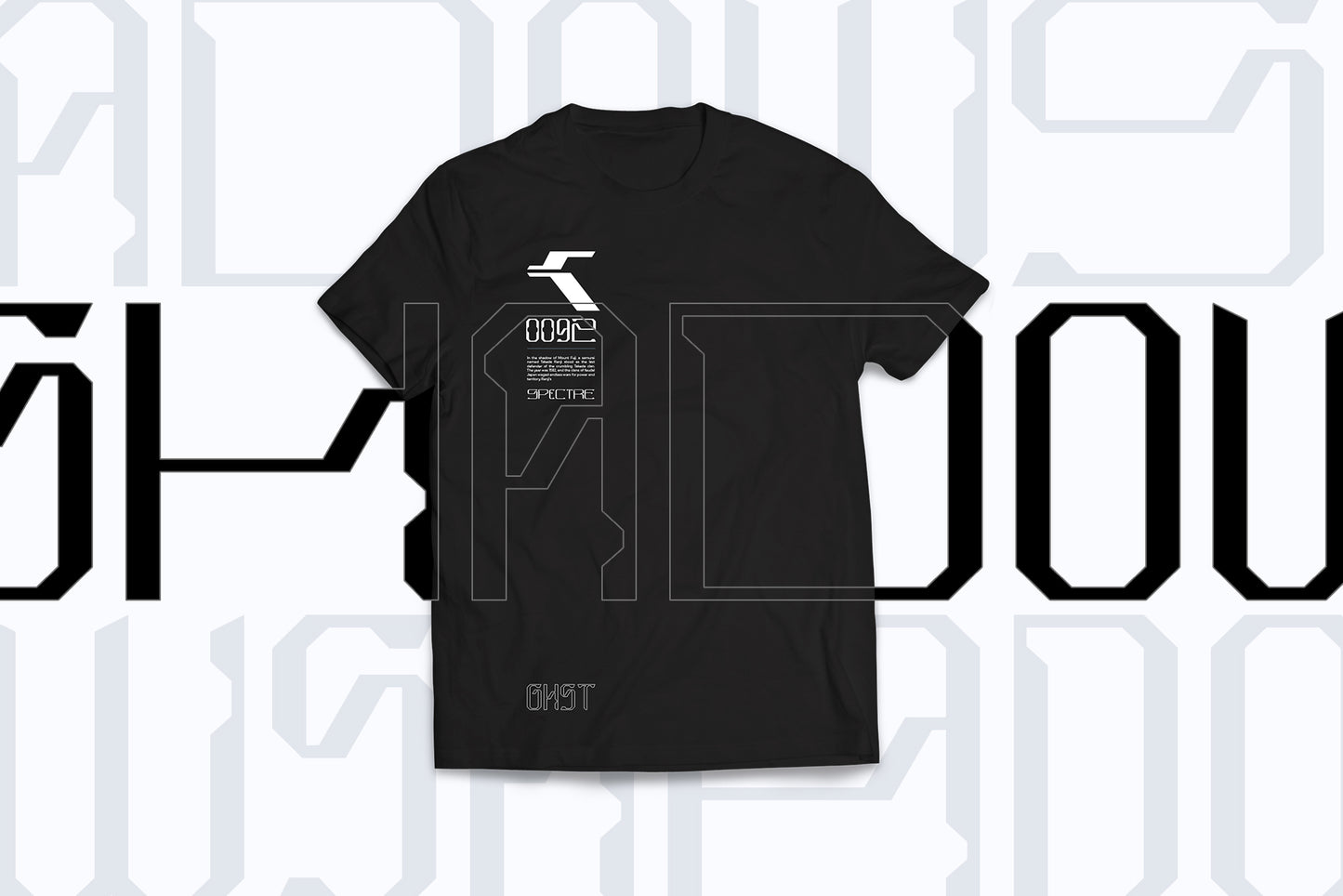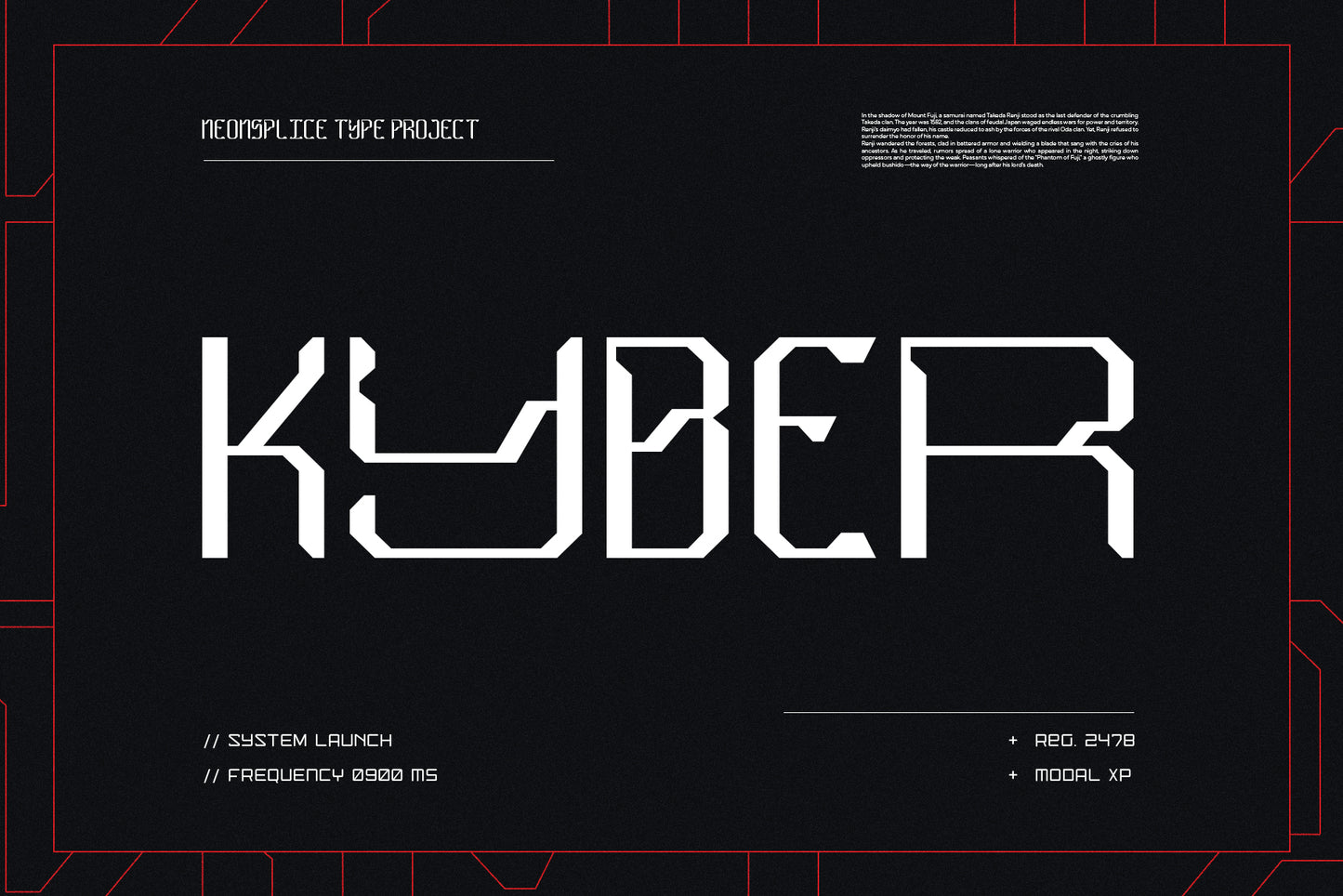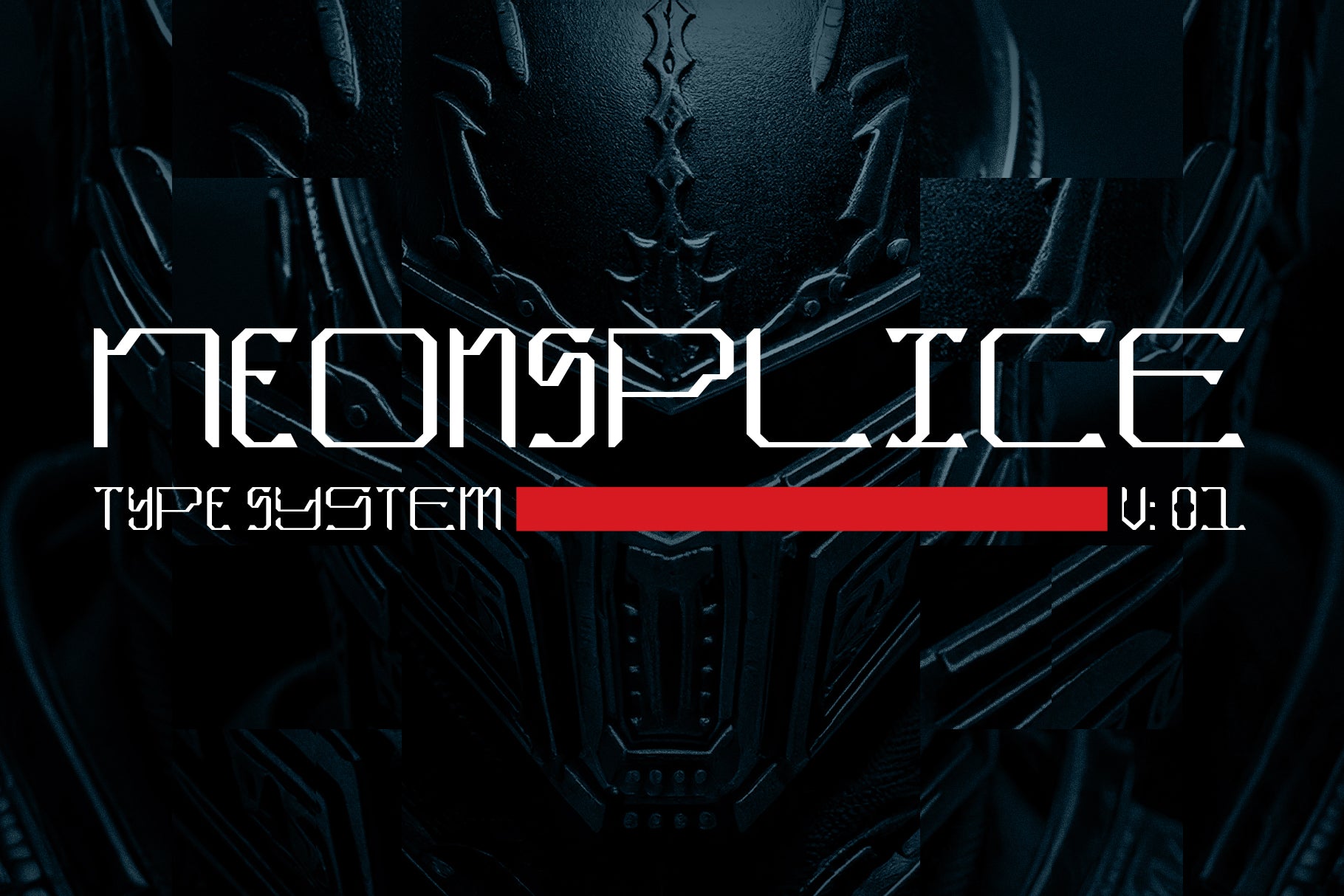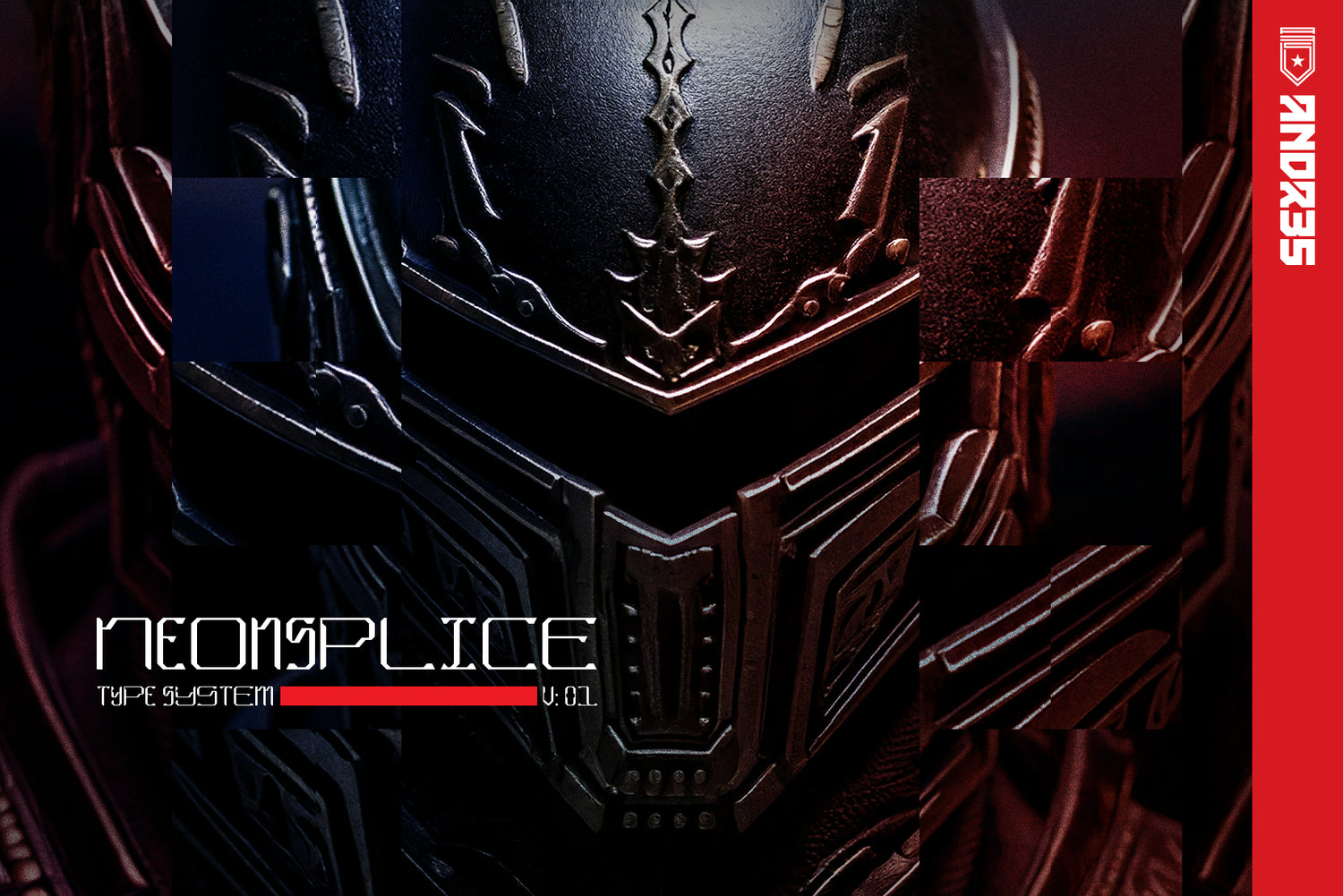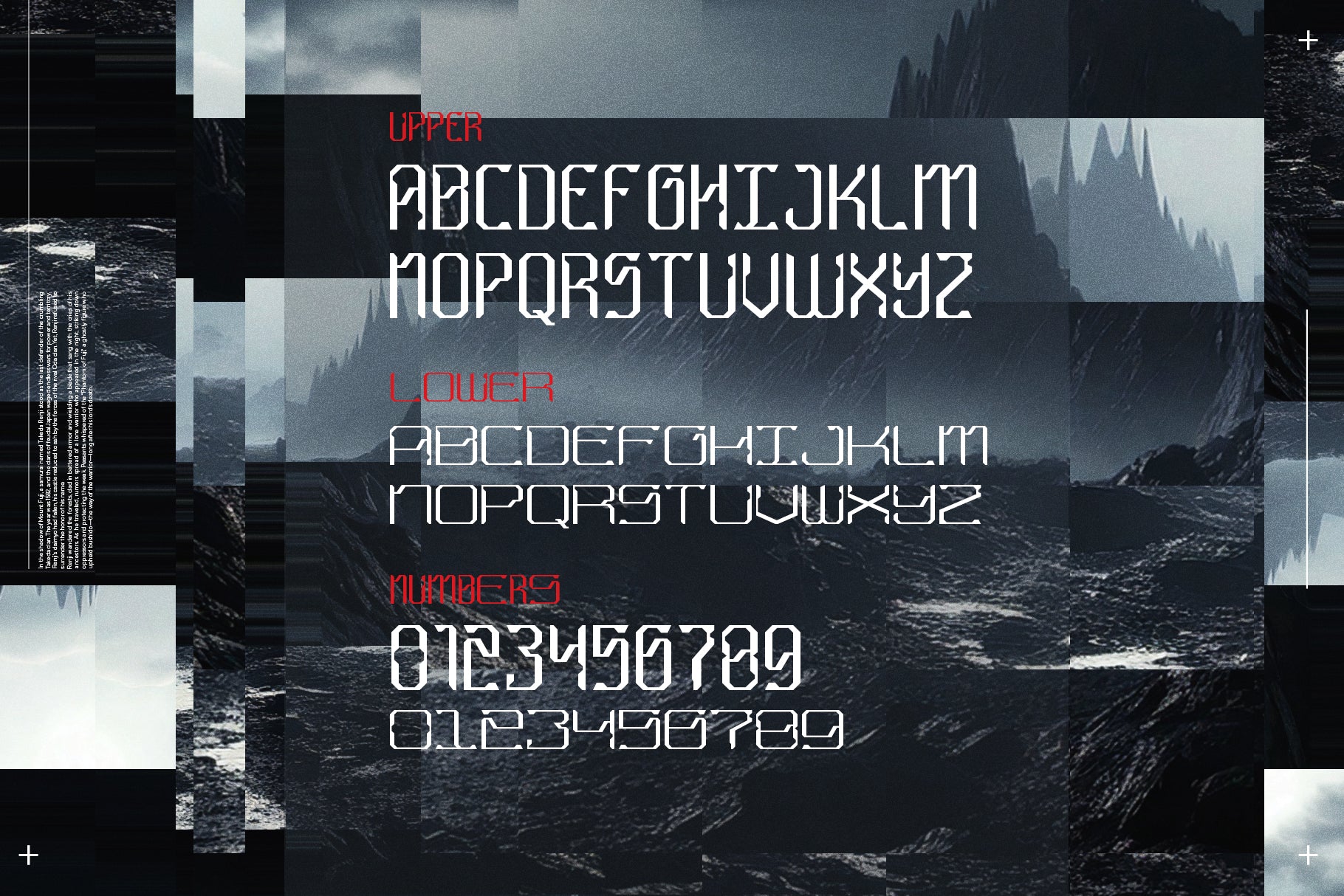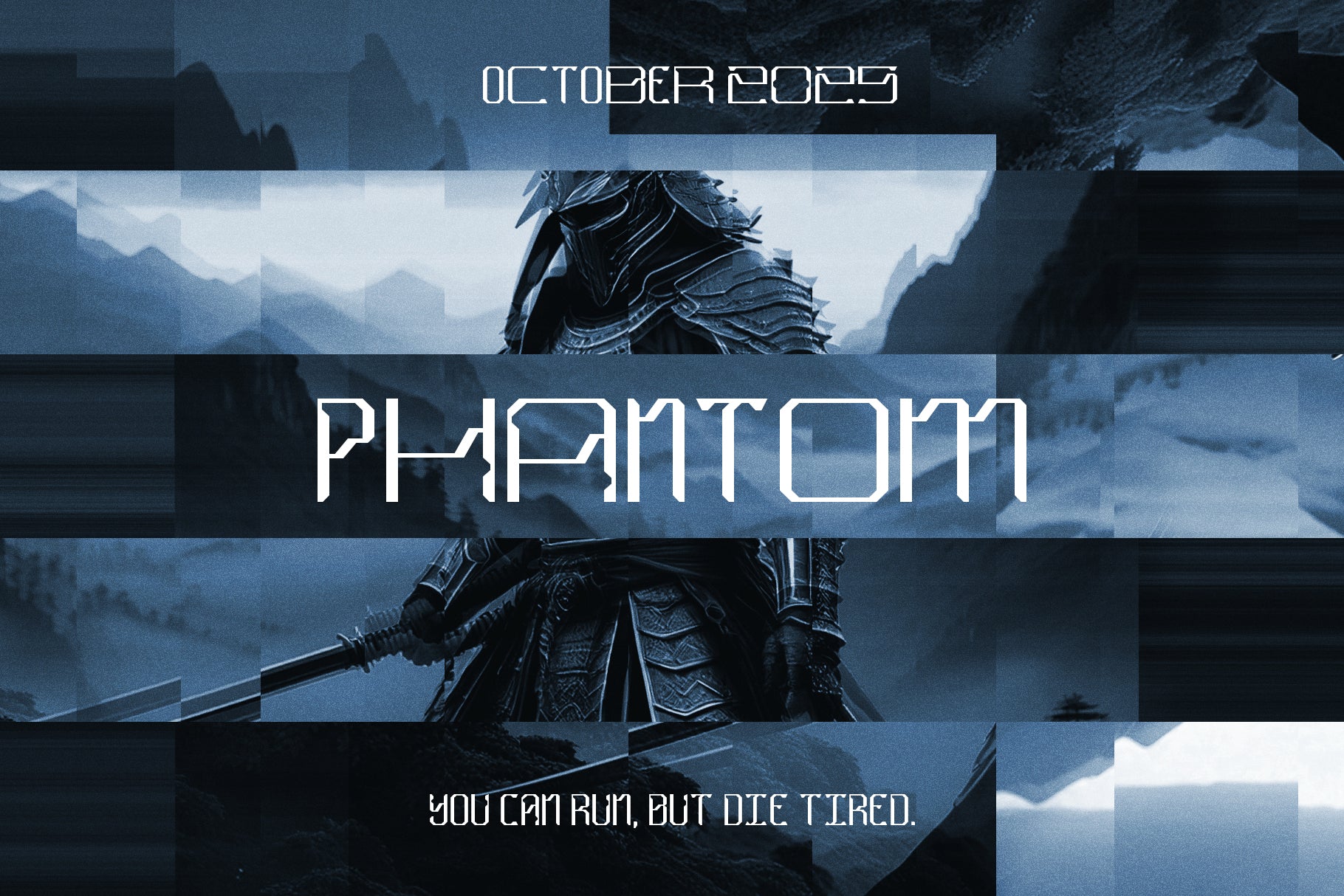
NeonSplice Font
Futuristic Typeface for Tech, Sci-Fi, and Streetwear Designs
NeonSplice is a futuristic font for designers looking to add condensed, clean typography to their tech, sci-fi related projects. Inspired by current streetwear trends, Japanese anime and gundam/mech styles, the sleek aesthetics of NeonSplice is built for headline, display usage.
NeonSplice's simple, thin letterforms help create a digital look without sacrificing too much on legibility. Use it for a cyberpunk interface, etched into a futuristic design, or powering a drum n' bass/ dubstep album cover.
2 Widths / All Caps: Whether you type in Upper/Lowercase you'll have the choice between a condensed and stretched out version of both letters and numbers.
Crisp Look: Inspired by industrial systems and digital grids, ensuring sharp clarity at any scale.
Sci-fi designs, apparel/streetwear, gaming logos, album art, futuristic/tech branding, and anywhere else a touch of future-forward energy is required.